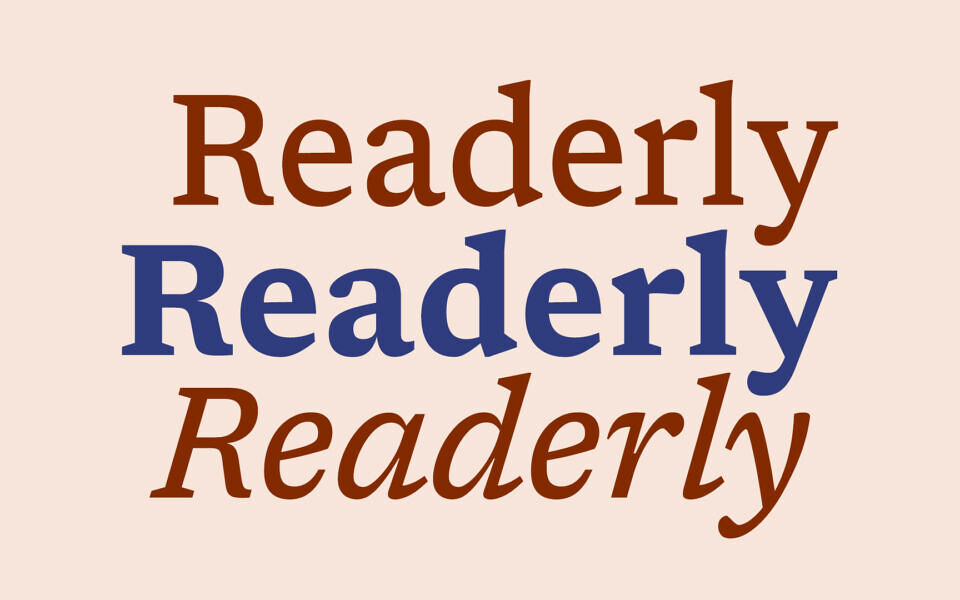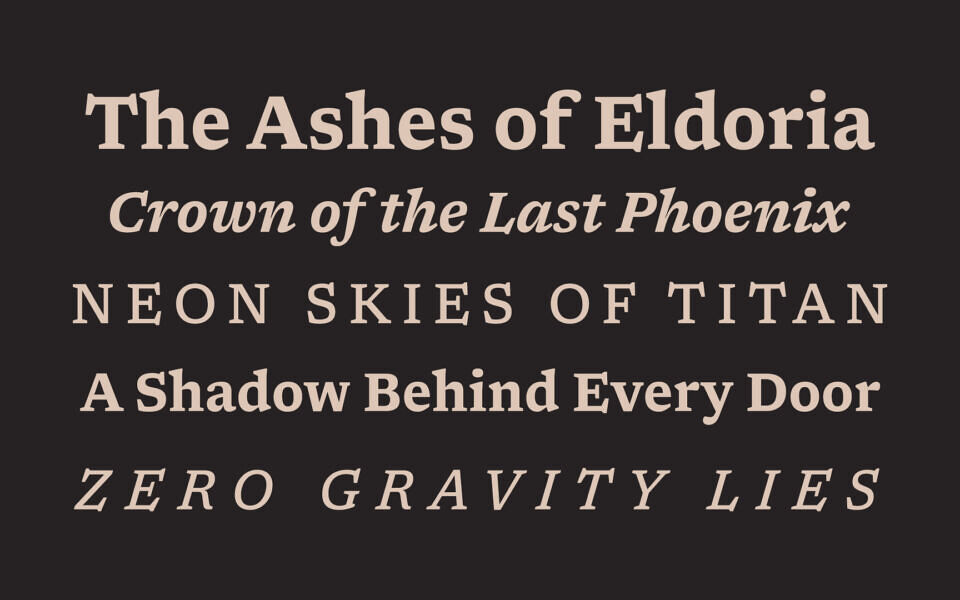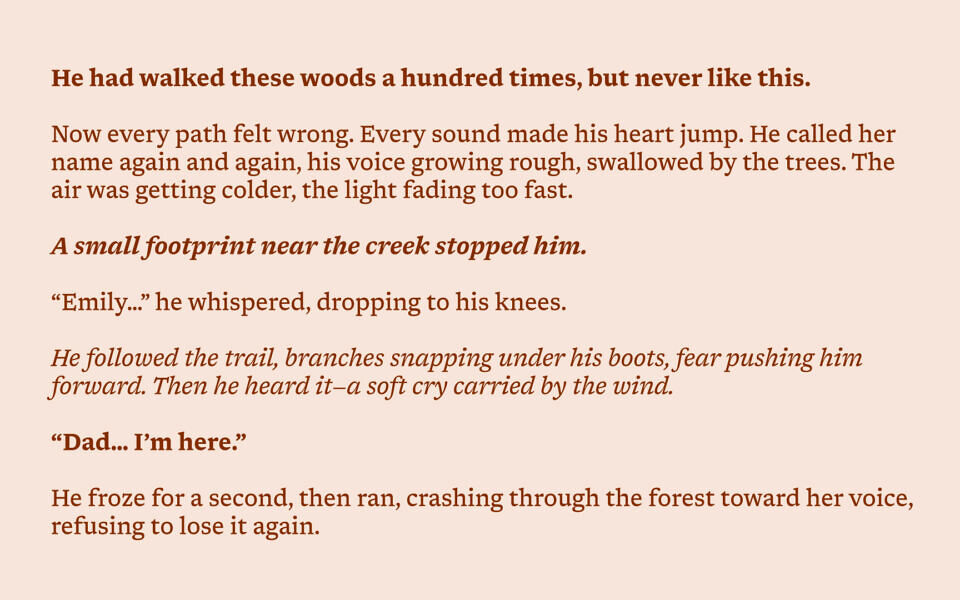
Readerly is a modified serif font based on Newsreader, while attempting to be metrically very similar to Bookerly, the default font on Kindle devices, to provide a similar reading experience.